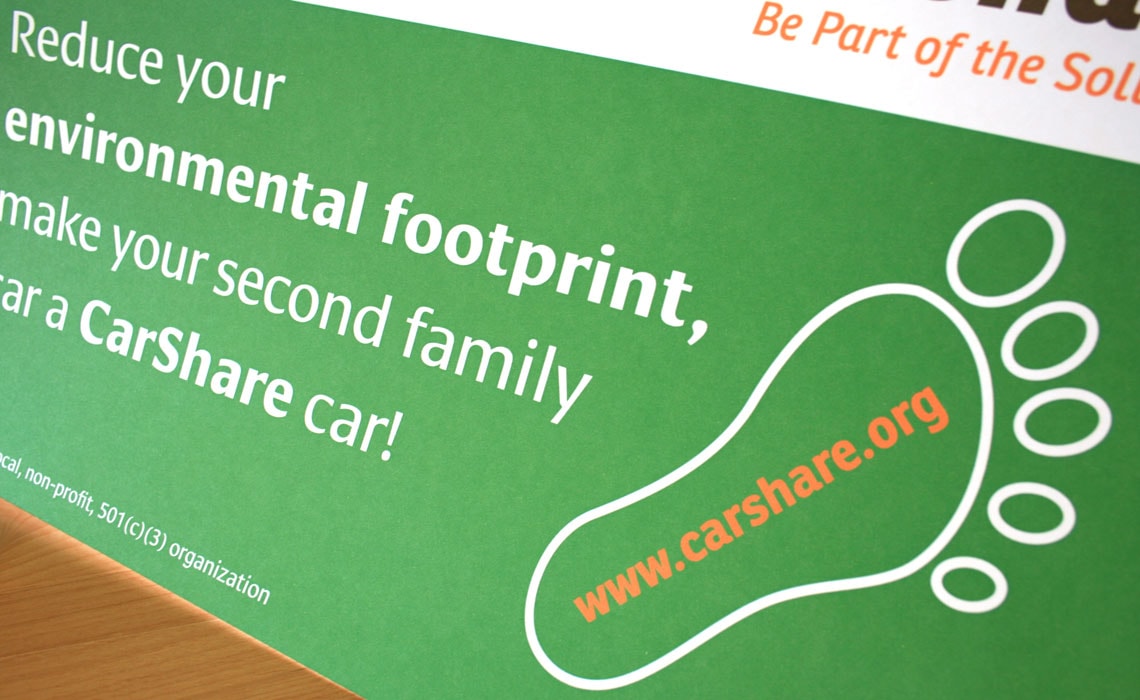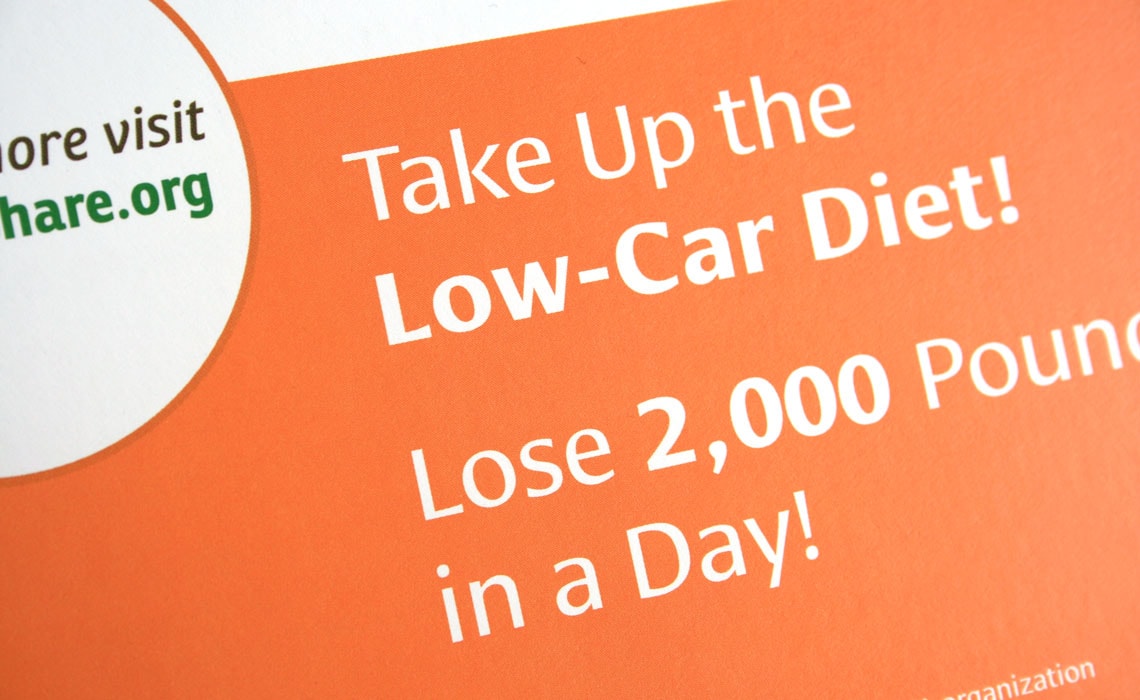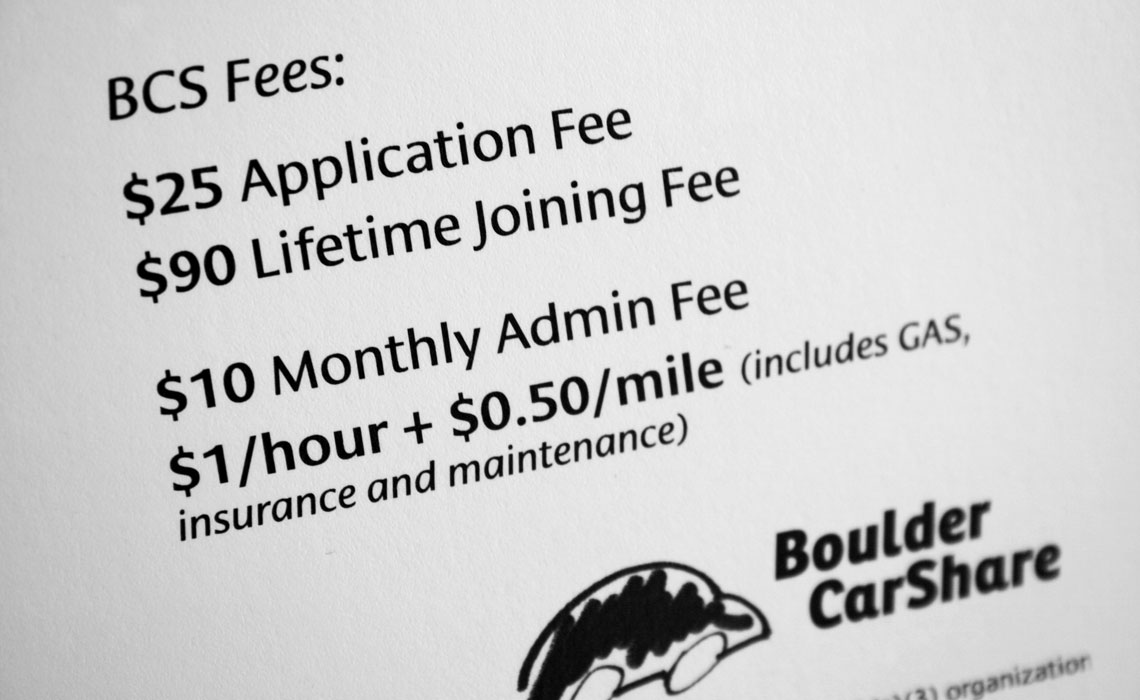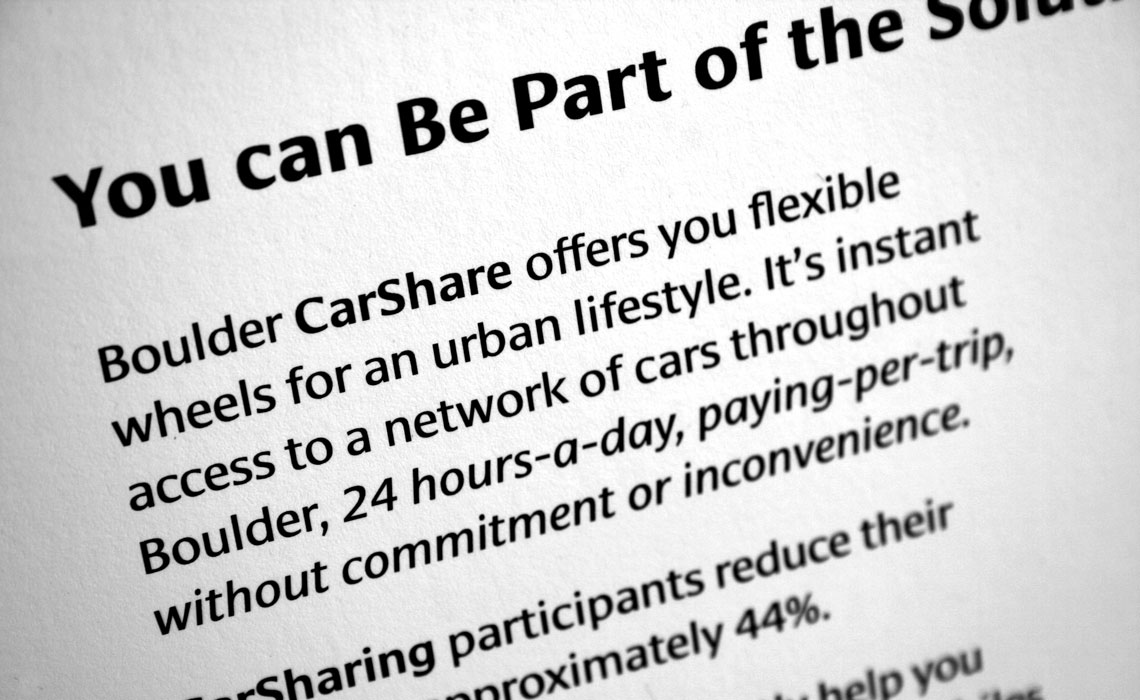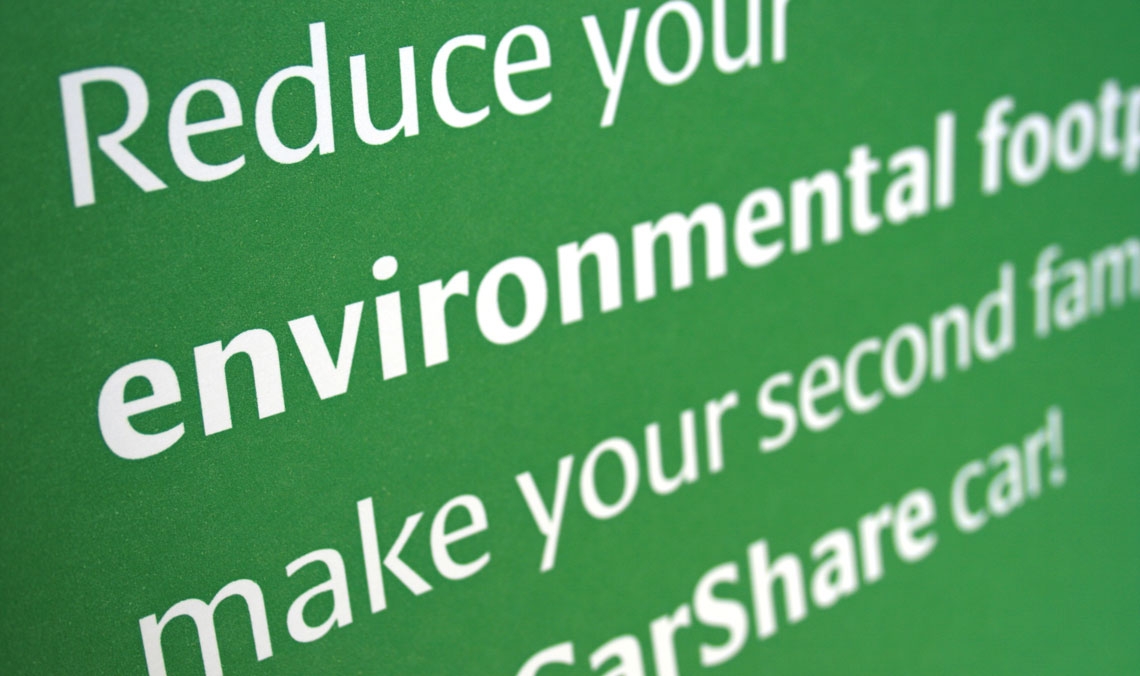
Boulder CarShare
This local group promoting sustainable car use by sharing vehicles, chose Cora and Ronnia for their new promotional materials, such as fliers, postcards and generally as advertising fonts. Cora's clean and serious appearance perfectly communicates the maturity of the organisation. Ronnia on the other hand provides a warm and friendly feel that is part of community driven initiatives.
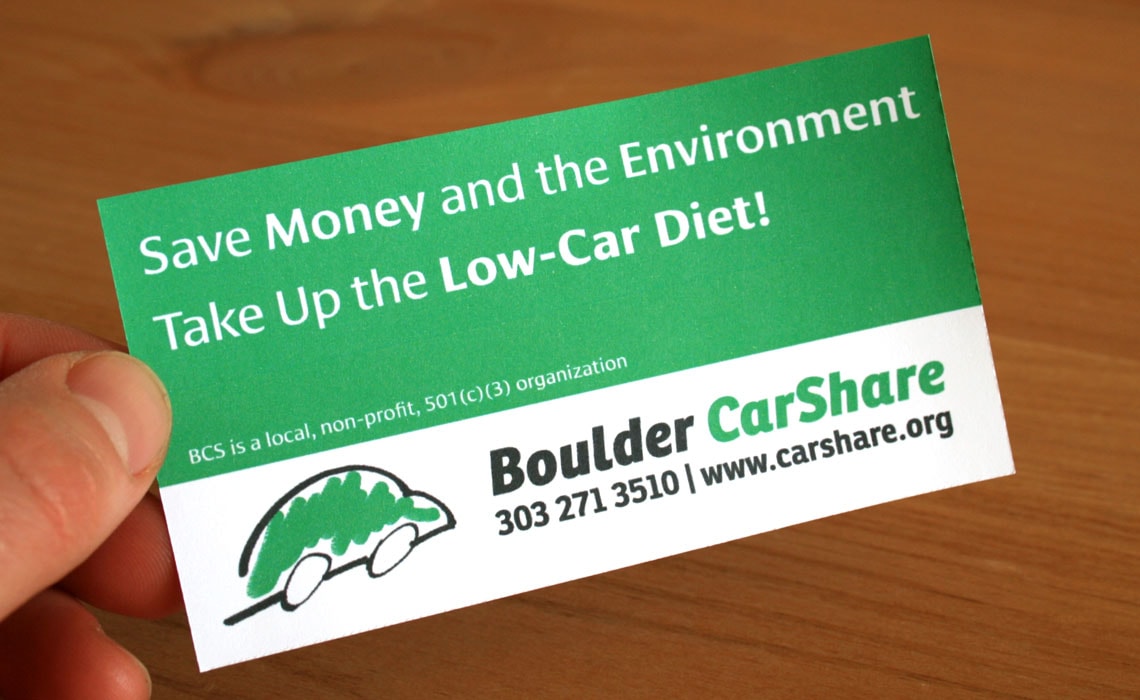
Boulder CarShare group promoting sustainable car use by sharing vehicles, chose Cora and Ronnia for their branding